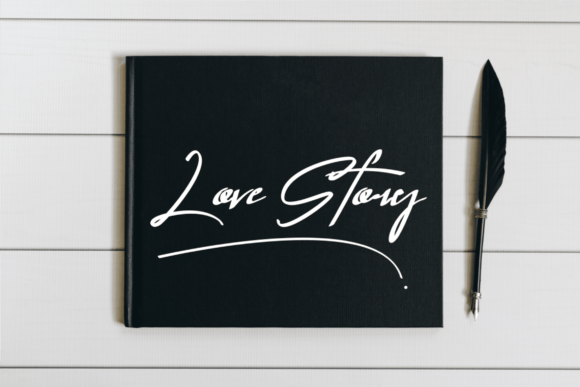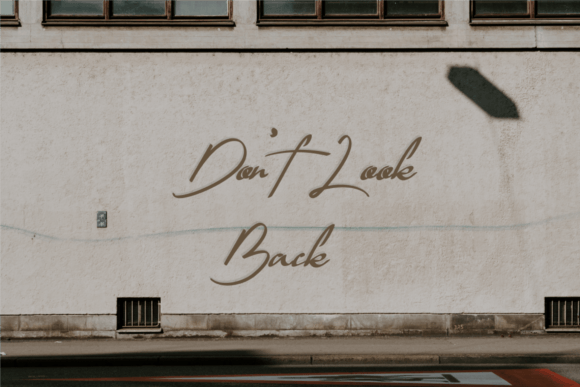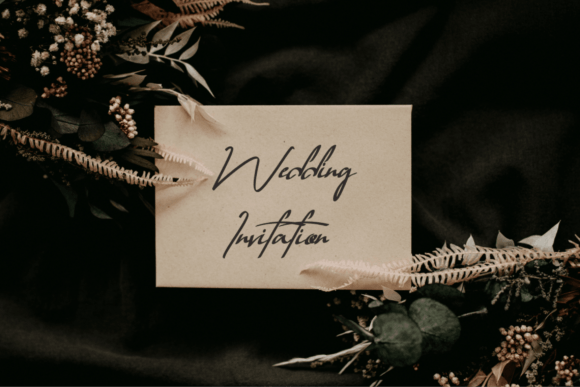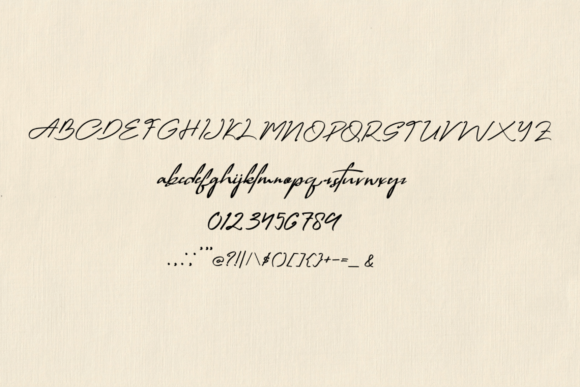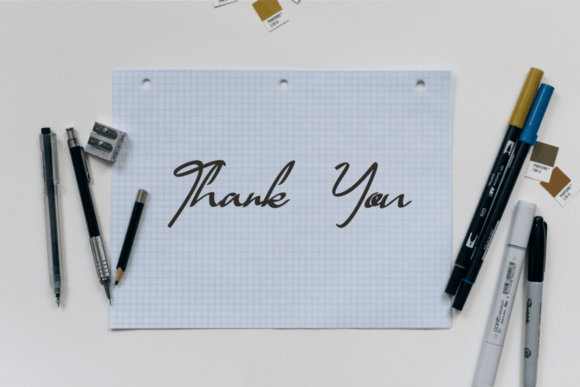
Creatalio Font
Creatalio Font : A Bold Handwritten Font for Impactful Branding
Introducing Creatalio, a bold and authentic handwritten font designed to bring impact and personality to your branding projects. This versatile typeface is perfect for creating memorable logos, eye-catching t-shirts, and distinctive product exports.
Key Features of Creatalio Font
• Bold Handwritten Style: Adds a striking and personal touch to your designs
• Authentic Character: Infuses your branding with genuine personality
• Versatile Application: Ideal for logos, t-shirt printing, product exports, and more
Perfect for Multiple Branding Projects
Creatalio’s adaptability makes it an excellent choice for:
Enhancing Your Brand Identity
With Creatalio, you can infuse your brand with boldness and authenticity. Its handwritten style adds a personal touch, ensuring your brand stands out in a crowded marketplace.
Digital and Print Versatility
Whether you’re creating digital designs or print materials, Creatalio maintains its impact and readability. Use it for:
• Striking website headers
• Engaging email marketing campaigns
• Unique product labels and tags
• Memorable business cards
Customization Options
Creatalio offers a range of customization options, allowing you to tailor your text to match your brand’s unique personality. This flexibility empowers you to create designs that truly reflect your brand vision.
Creatalio is more than just a font; it’s a branding asset that elevates your projects with boldness and authenticity. Its distinctive handwritten style inspires designs that make a powerful statement and leave a lasting impression. By incorporating Creatalio into your branding, you can create visually striking and memorable content that engages your audience. Whether you’re a professional designer or an entrepreneur looking to establish a strong brand identity, Creatalio offers the perfect blend of impact and authenticity. Consider pairing Creatalio with clean sans-serif fonts for contrast or complementing it with other script fonts for a dynamic typographic palette. This versatility allows you to create branding that is both bold and harmonious across various mediums and industries. Embrace the power of Creatalio today and watch as it transforms your branding ideas into impactful and authentic visual identities!